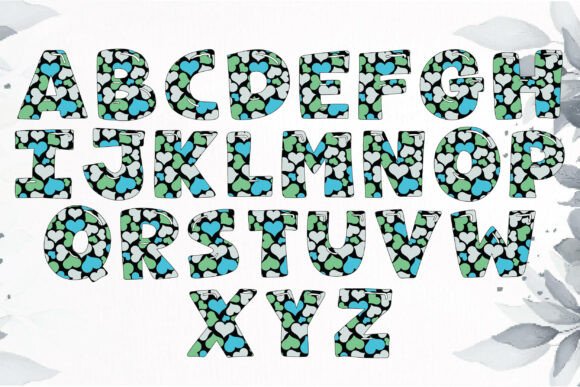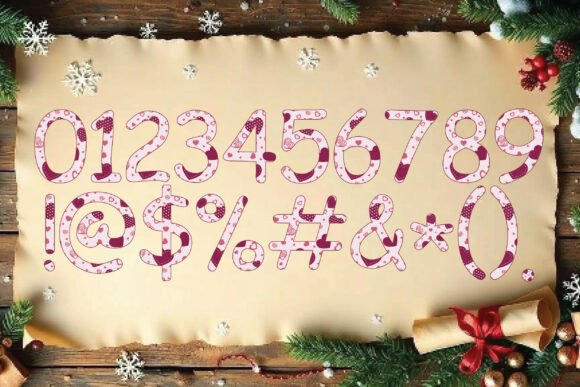
Introduction to Colorful Valentine Pack Font
Have you ever been stuck in a design rut, searching for the perfect font to add a touch of romance to your project? As you scroll through your design resources, you come across the perfect alphabet, but it’s missing that special something – a pop of color to make it truly stand out. This is where the Colorful Valentine Pack Font comes in – a stunning collection of high-quality fonts that will add a dash of whimsy and charm to your designs.
Whether you’re a seasoned designer or a creative hobbyist, this bundle is a valuable resource that will elevate your projects to the next level. With its vibrant Valentine-inspired colors and playful preppy hearts, the Colorful Valentine Pack Font is perfect for adding a personal touch to your designs, from social media graphics to Valentine’s Day cards and planners.
Key Features of Colorful Valentine Pack Font
- High-Quality Design: The Colorful Valentine Pack Font is designed with high-quality vectors, making it perfect for any creative project that requires a professional touch.
- Large Character Set: The Colorful Valentine Pack Font includes a large character set, including uppercase and lowercase letters, numbers, and special characters, making it perfect for any creative project.
- Perfect for Valentine’s Day: The Colorful Valentine Pack Font is specifically designed for Valentine’s Day, making it an excellent resource for designers and artists looking to create romantic and festive designs.
Honest Review: Colorful Valentine Pack Font
I recently had the chance to dive into the Colorful Valentine Pack Font, and I must say it’s a delightful addition to any designer’s toolkit. With a free download option, this font pack is an excellent resource for anyone working on a creative project that requires a touch of whimsy.
What works well is the sheer variety of styles and designs within the pack. From cursive to bold, each font is carefully crafted to evoke a sense of romance and love. The transparent background option is also a huge plus, allowing for seamless integration into any design project.
- ✨ Variety of styles and designs within the pack
- ✨ Transparent background option for easy integration
- ✨ High-quality fonts that are perfect for creative projects
However, I did find the limited character set to be a bit of a ⚠️ limitation. While the fonts themselves are beautiful, the lack of additional characters can make them less versatile for certain design tasks.
Overall, I’m impressed with the Colorful Valentine Pack Font. It’s a great addition to any designer’s library, and the free download option makes it an excellent design resource. With a bit of creativity, you can use these fonts to create truly unique and eye-catching designs.
Colorful Valentine Pack Font
For the most creative results, use the Colorful Valentine Pack Font in combination with other design elements, such as bold graphics and bright colors. This will help your project stand out and make a lasting impression.
The Colorful Valentine Pack Font is perfect for Valentine’s Day projects, such as cards, invitations, and social media graphics. It’s also great for other creative projects, like party decorations and gift tags.